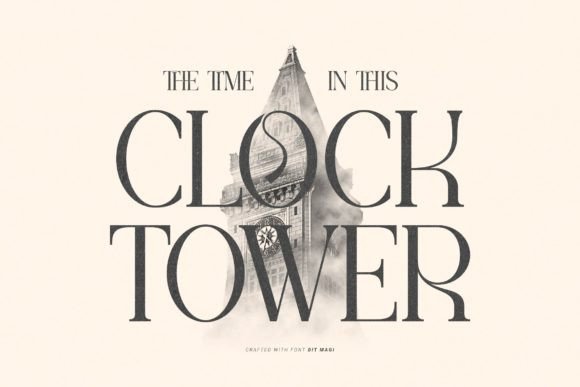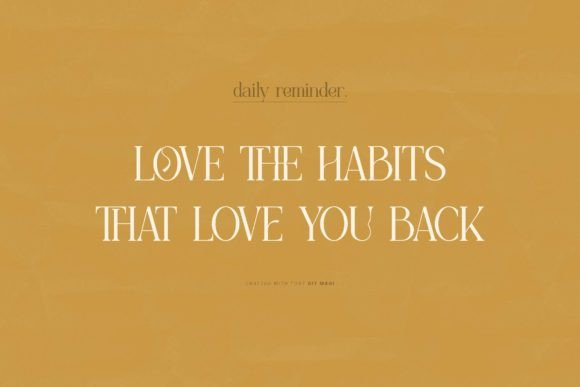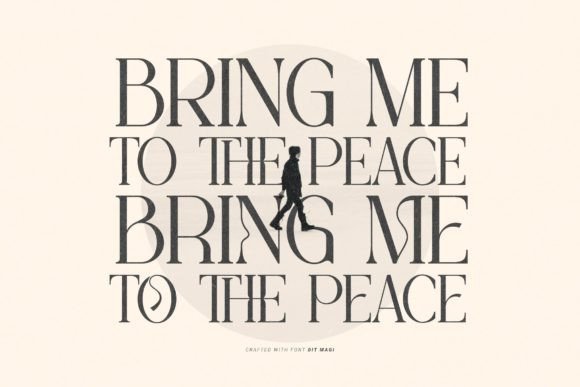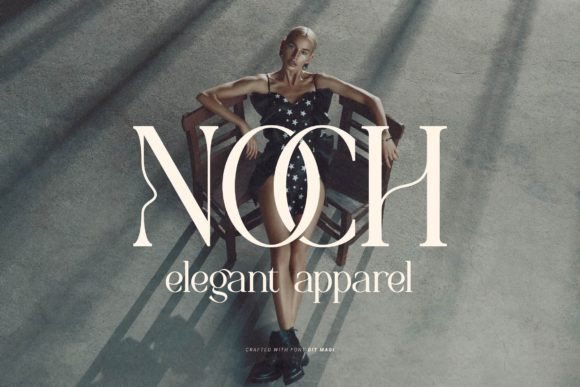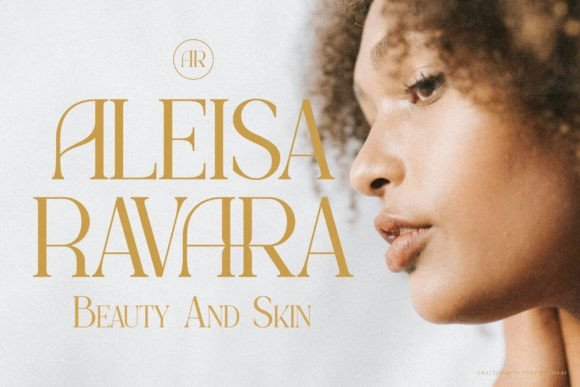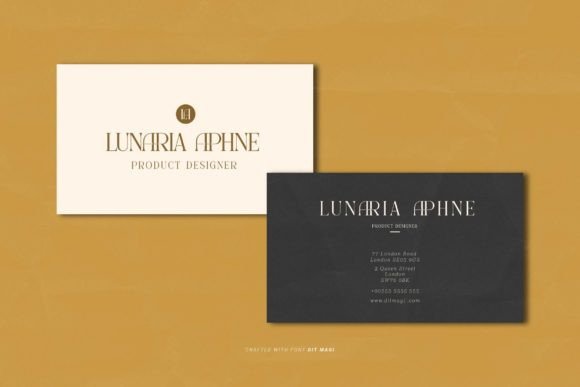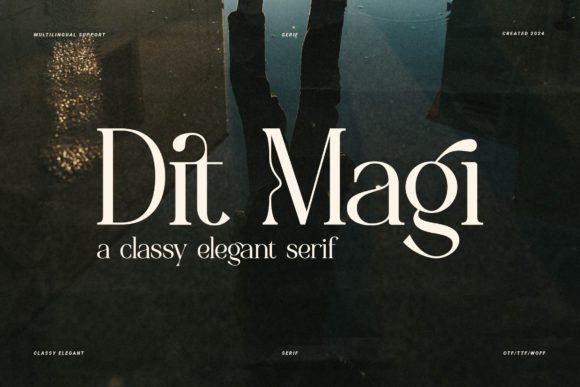
Introducing Dit Magi Font: Elevate Your Designs with Timeless Elegance
In the world of typography, fonts play a crucial role in conveying the tone and personality of a design. For those seeking a stylish and elegant serif font with a classic feel, Dit Magi Font is an excellent choice. This beautiful font features smooth, sophisticated lines that make it perfect for formal and refined designs, such as invitations, logos, or high-end branding.
The Characteristics of Dit Magi Font
Dit Magi Font boasts a range of characteristics that make it an ideal choice for designers and crafters looking to add a touch of class and timeless beauty to their projects. Some of its key features include:
- Serif elegance: Dit Magi Font features traditional serif lines, giving it a classic and sophisticated feel.
- Smooth lines: The font’s smooth lines and curves create a sense of fluidity and refinement.
- Timeless beauty: Dit Magi Font’s elegant design ensures that it will remain a stylish choice for years to come.
Perfect for Formal and Refined Designs
Dit Magi Font is specifically designed for use in formal and refined designs, such as:
- Invitations: Whether it’s a wedding invitation, a formal gala, or a corporate event, Dit Magi Font adds a touch of sophistication and elegance.
- Logos: For high-end brands, Dit Magi Font provides a classic and timeless look that exudes luxury and refinement.
- High-end branding: From fashion to finance, Dit Magi Font is perfect for brands seeking to convey a sense of elegance and sophistication.
Why Choose Dit Magi Font?
With so many fonts available, why choose Dit Magi Font? Here are just a few reasons:
- Uniqueness: While Dit Magi Font has a classic feel, its unique design ensures that it stands out from more traditional serif fonts.
- Versatility: Dit Magi Font can be used in a range of design applications, from print to digital.
- Elegance: The font’s sophisticated lines and curves add a touch of elegance to any design.
Tips for Using Dit Magi Font
To get the most out of Dit Magi Font, here are a few tips:
- Pair with contrasting fonts: Combine Dit Magi Font with a sans-serif font for a striking contrast.
- Use for headlines and titles: Dit Magi Font is perfect for headlines and titles, where its elegant design can shine.
- Experiment with colors: Try pairing Dit Magi Font with a range of colors to find the perfect combination for your design.
In conclusion, Dit Magi Font is a stylish and elegant serif font that adds a touch of class and timeless beauty to any project. With its smooth, sophisticated lines and classic feel, it’s perfect for formal and refined designs, such as invitations, logos, or high-end branding. Whether you’re a designer or crafter, Dit Magi Font is an excellent choice for those seeking to elevate their designs with a sense of elegance and sophistication.
Get Creative with Dit Magi Font